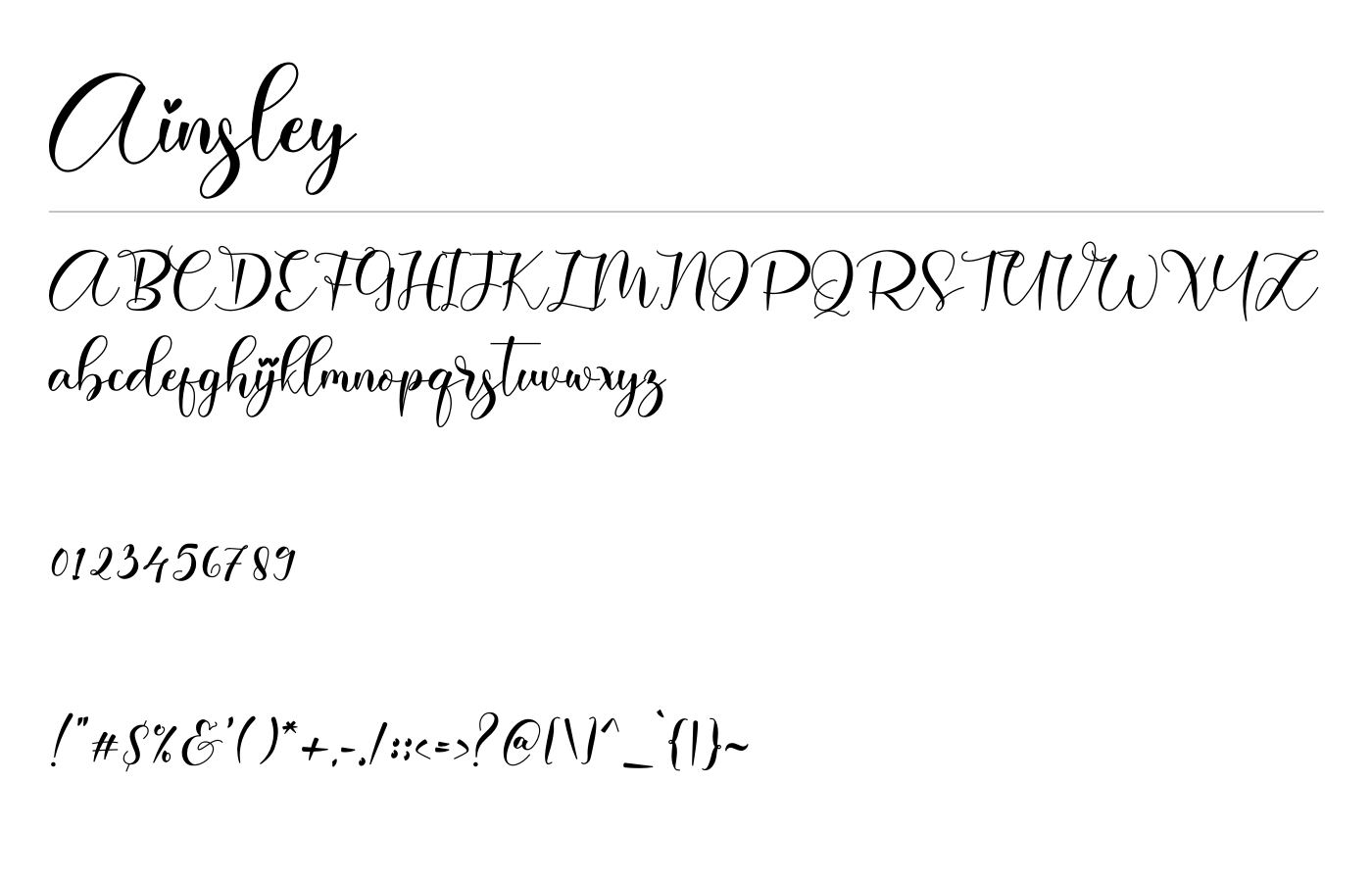
Ainsley is a delicate and elegant script font characterized by its smooth, flowing strokes and stylish flourishes, giving it a handwritten, modern calligraphy feel. It features a clean, high-contrast design with well-crafted uppercase and lowercase letters, making it perfect for adding a personal, sophisticated touch to invitations, branding, and decorative headlines. This font works best in elegant, creative contexts where a graceful and charming appearance is desired.
Ainsley Font
About Ainsley Font